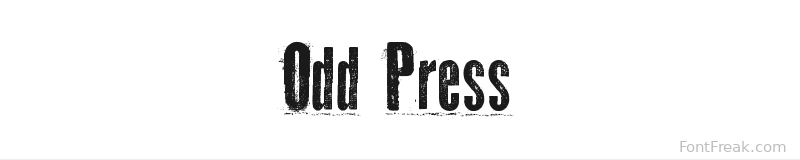
Odd Press
About Odd Press
The Odd Press font, designed by Galdino Otten Fonts, is a distinctive display typeface that captures attention with its unique character. This font falls into the decorative category, showcasing an unconventional, slightly distressed aesthetic that evokes a sense of vintage charm. The stroke weight varies throughout the characters, offering a playful contrast that adds to its whimsical appeal. The spacing is thoughtfully designed to enhance readability while still delivering an artistic flair, making it suitable for various creative projects.
Best suited for eye-catching applications, the Odd Press font excels in use cases such as wedding invitations, where its quirky style can add a personal touch. It's also ideal for movie posters, helping to convey a film's unique theme or tone with its bold presence. Restaurant menus can benefit from its unconventional look, drawing diners' attention and setting a memorable ambiance. Additionally, this font is perfect for branding initiatives, particularly for small businesses aiming to stand out in a competitive market.
The target audience for the Odd Press font includes graphic designers seeking to infuse their projects with originality, small business owners looking for a way to differentiate their branding, and content creators who want to add a unique voice to their visual content.
What truly sets the Odd Press font apart is its ability to blend playfulness with sophistication, making it versatile enough for both formal and informal contexts. With its freeware license, users can easily access the Odd Press font free download, enabling them to enhance their designs without financial constraints. This font is a compelling choice for anyone looking to make a statement while maintaining a sense of artistic integrity.